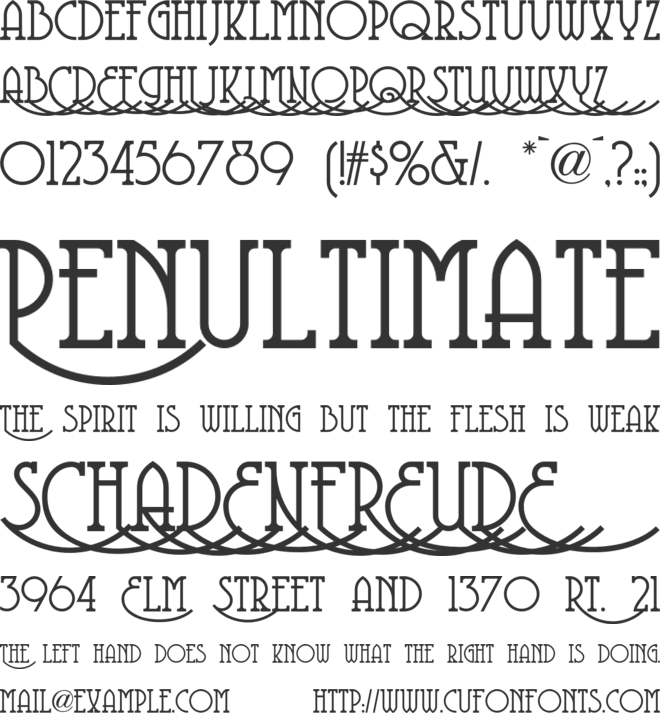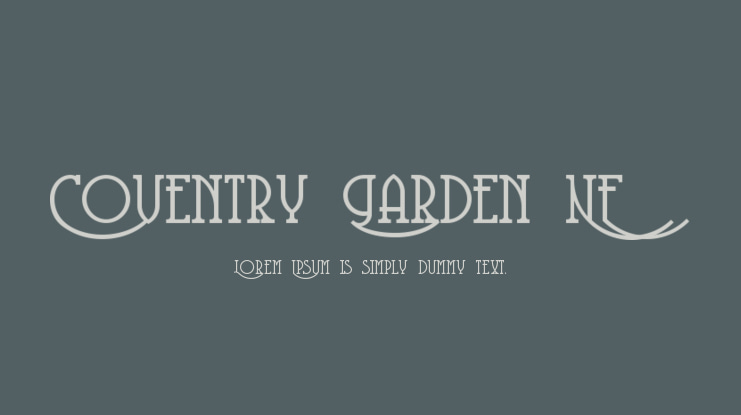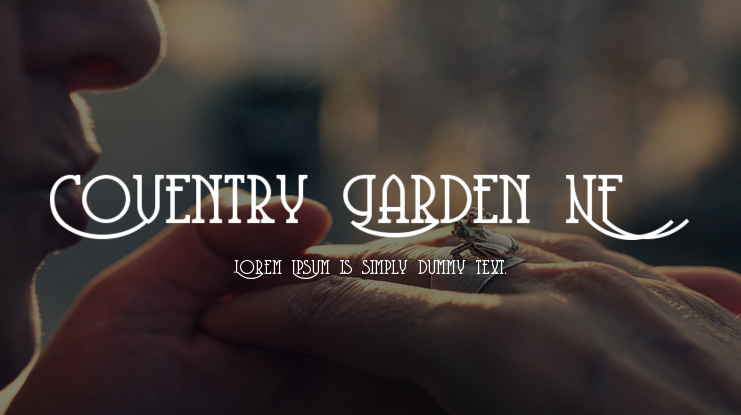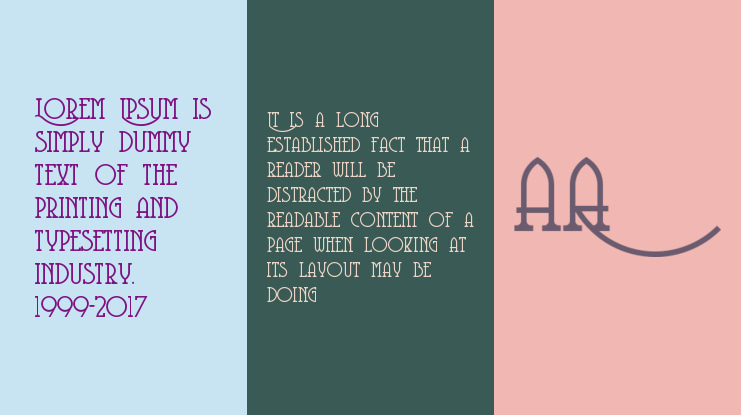
Nick Curtis
I came across this particular treatment for swash caps in an old book on letterhead design. The original had been handlettered, but I though it might be convenient to have a ready-made font to accomplish the same effect, and here it is. As an extra added feature, the â@â sign is an ampersand with a long tail.